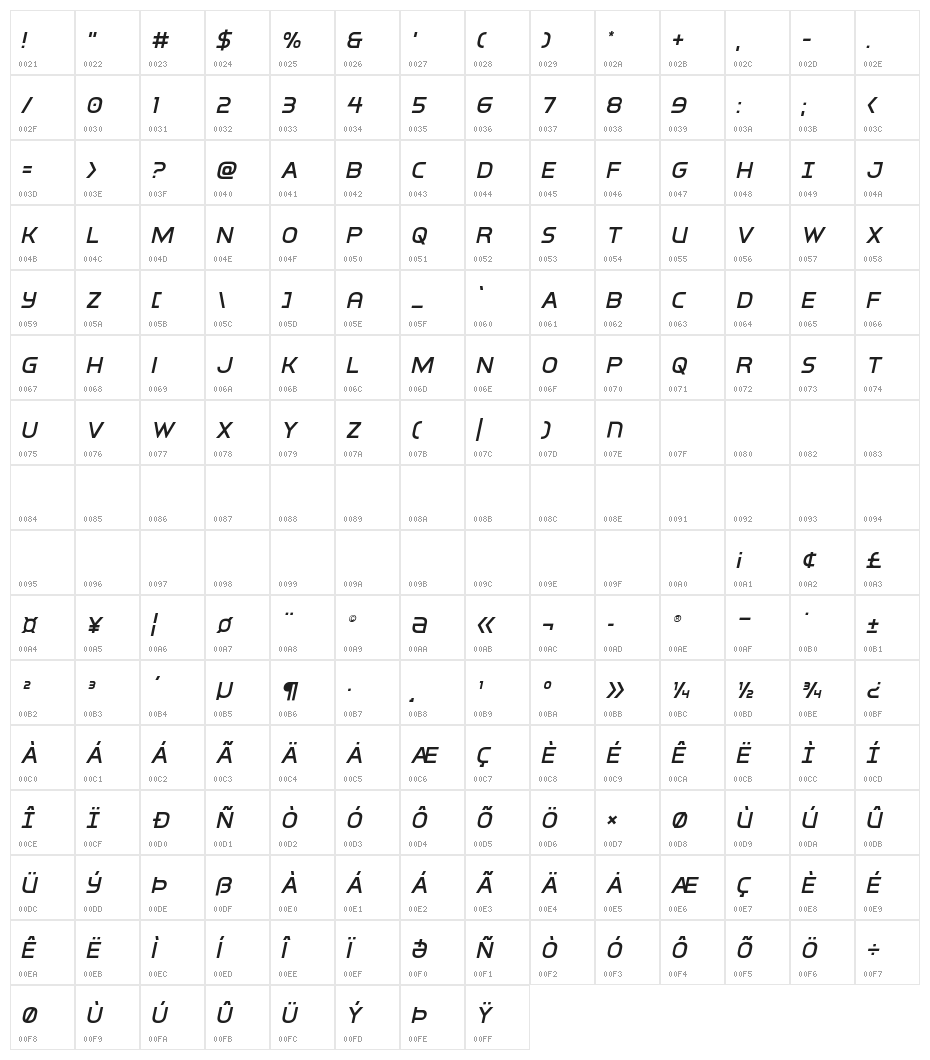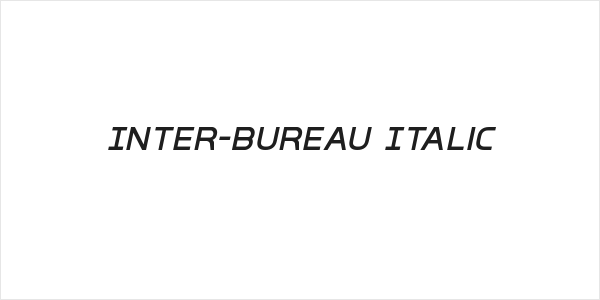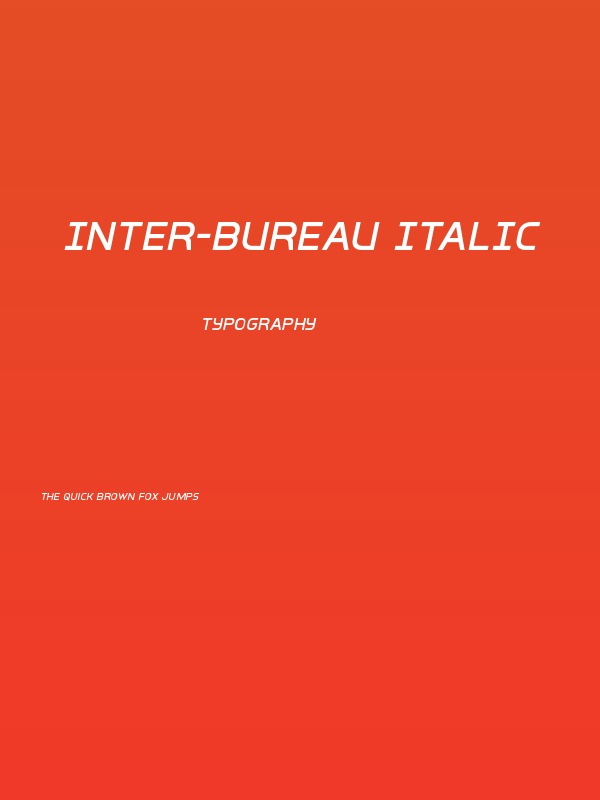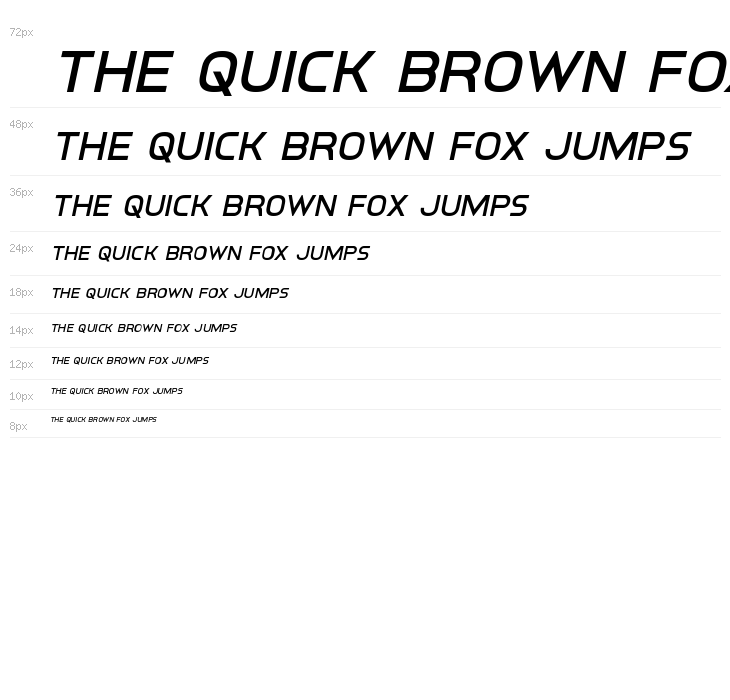
Inter-Bureau Italic Font
Inter-Bureau Italic Description
This font features a sleek, modern design with a distinct italic slant, giving it a dynamic and forward-moving appearance. The characters are clean and sans-serif, with smooth curves and sharp edges that convey a sense of precision and efficiency. The uppercase and lowercase letters maintain a consistent style, ensuring readability and uniformity across different text sizes. Numbers and special characters are designed with the same attention to detail, making them easily distinguishable. The overall aesthetic is contemporary and professional, suitable for a variety of digital and print applications.
Proposed ProjectsIdeal for tech branding, modern advertising, digital interfaces, and editorial design.